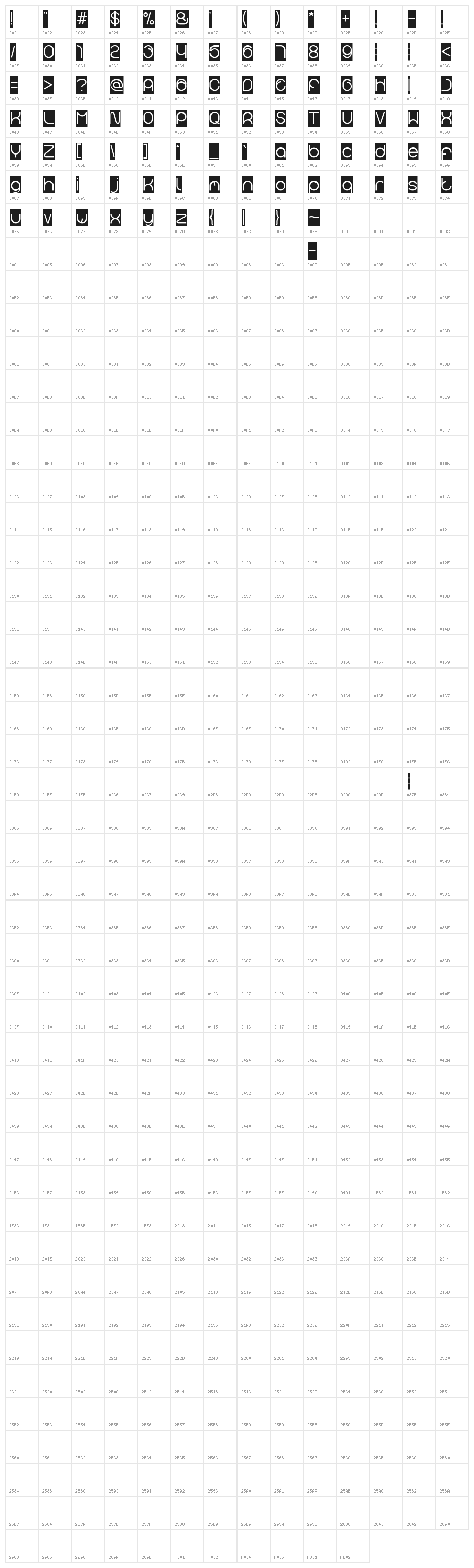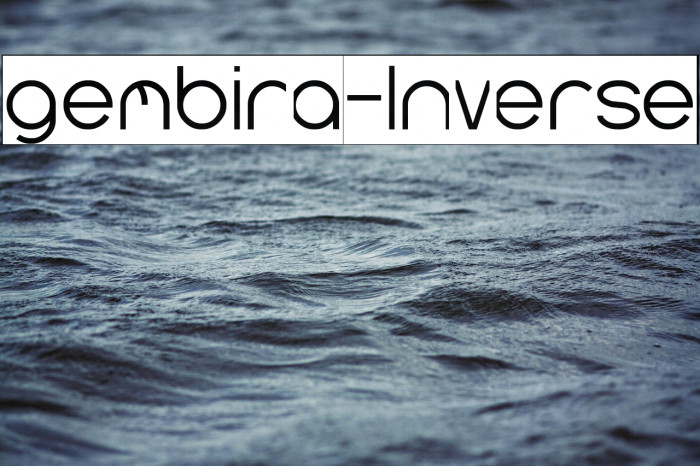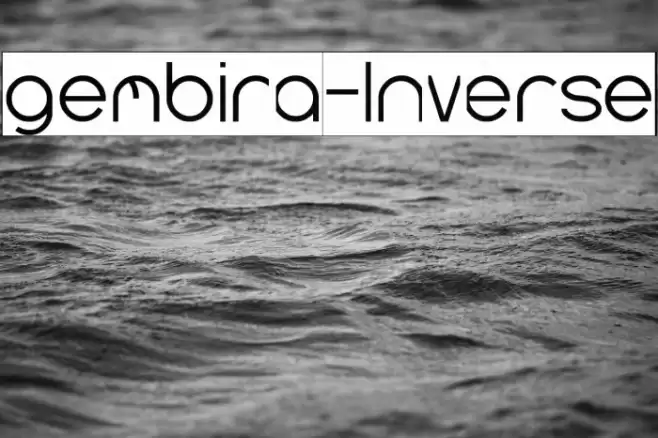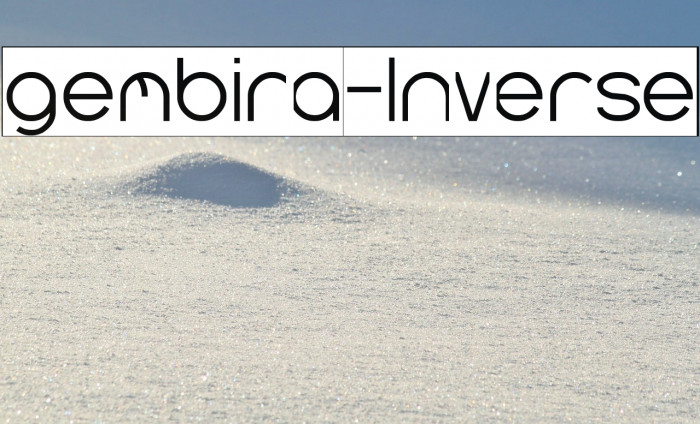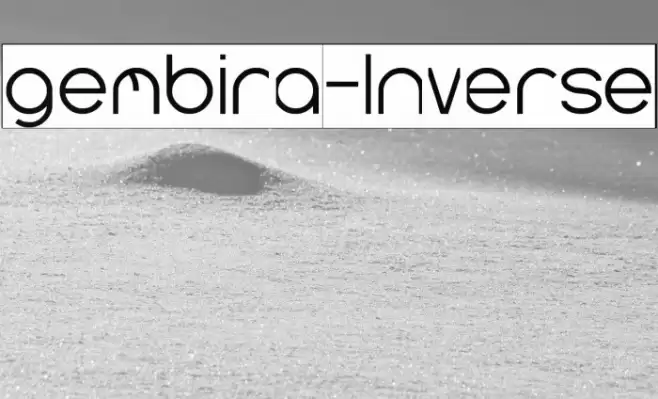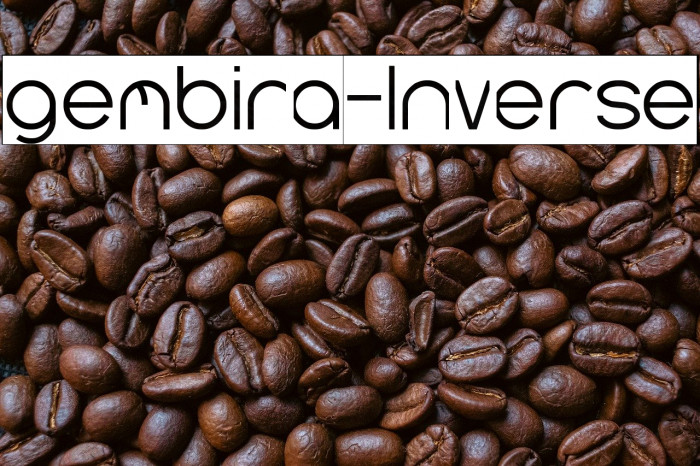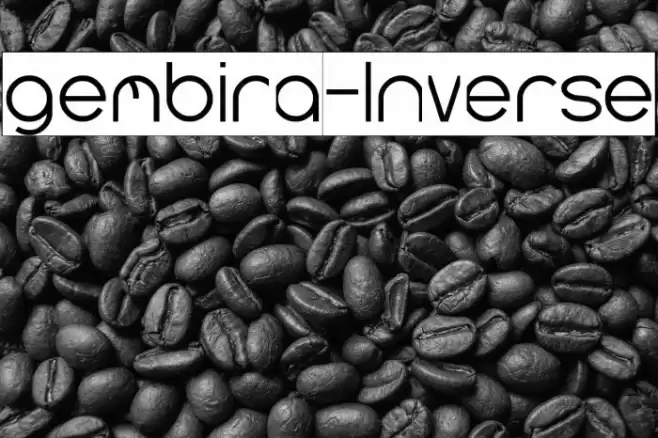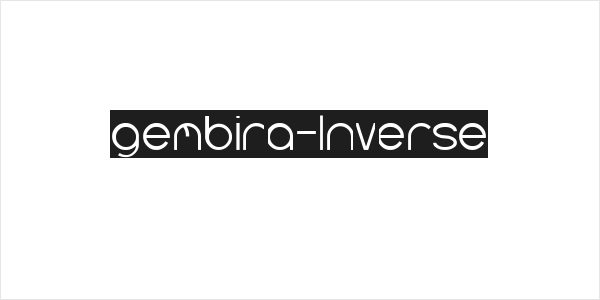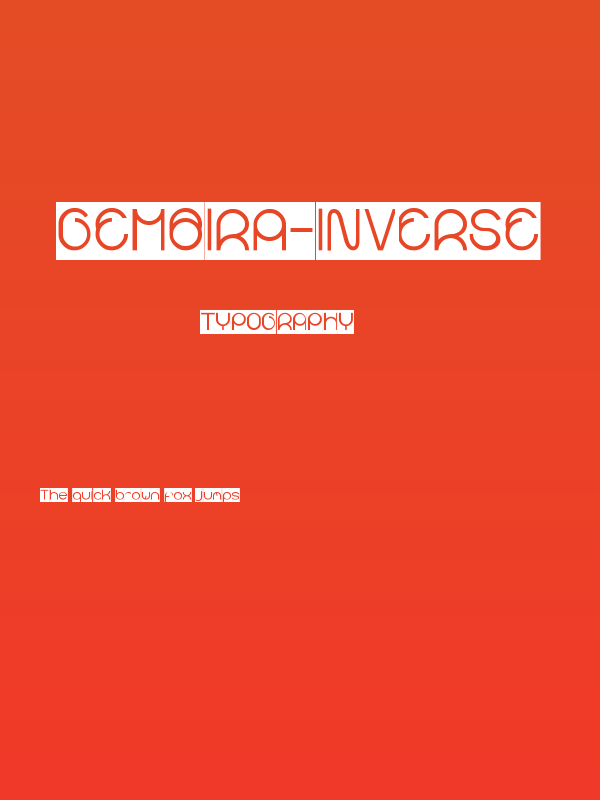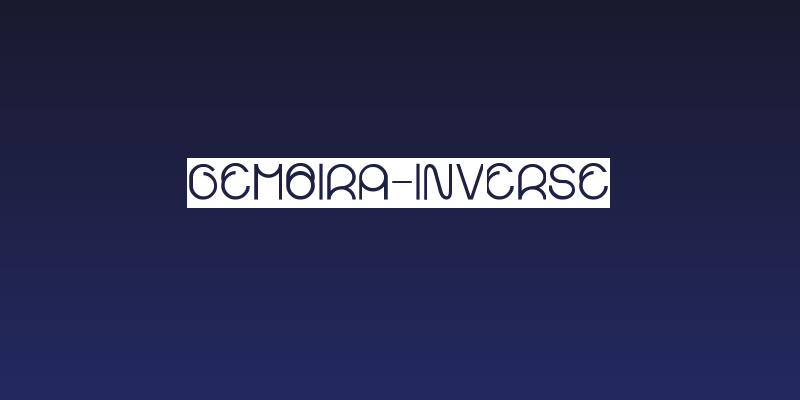
gembira-Inverse Font
gembira-Inverse Description
This font features a modern and geometric design with a unique twist on traditional letterforms. Each character is crafted with a consistent stroke width, creating a harmonious and balanced appearance. The uppercase letters are bold and striking, while the lowercase letters maintain a playful yet sophisticated look. The numerals are distinct and easily readable, complementing the overall style. Special characters are designed to match the font's aesthetic, making it versatile for various applications. The font's clean lines and contemporary feel make it suitable for modern design projects.
| Proposed Projects | Ideal for branding, advertising, digital media, and modern editorial design. |